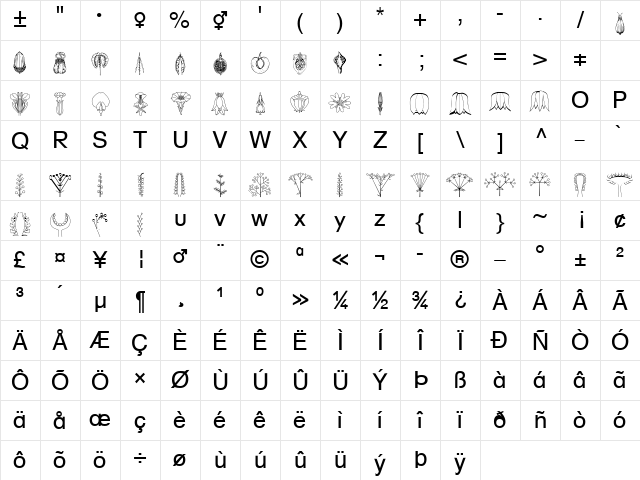
BioFlower Becker Normal Free Font
BioFlower Becker Normal
Design Context for BioFlower Becker
BioFlower Becker is a composed and adaptable typeface that performs quietly and consistently across a wide range of design contexts.